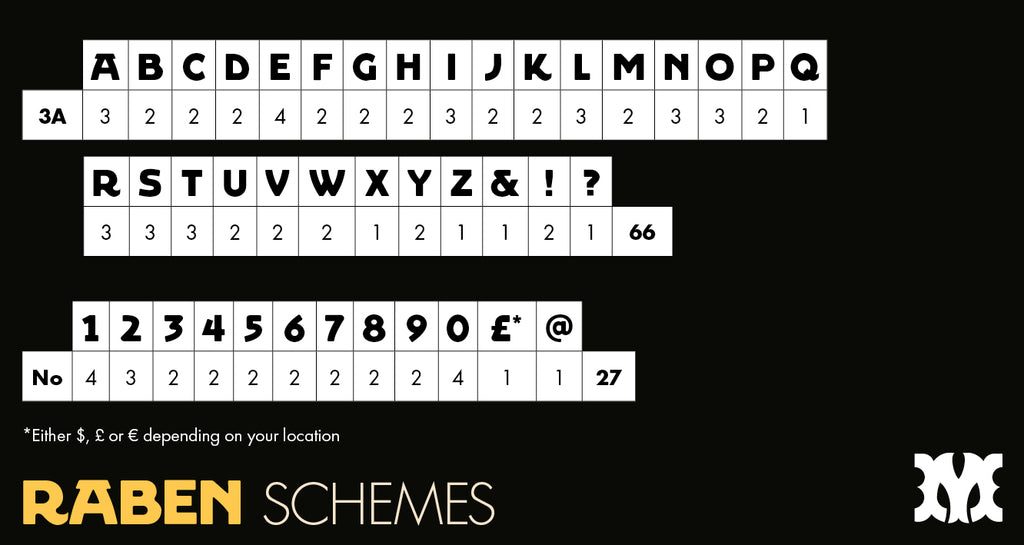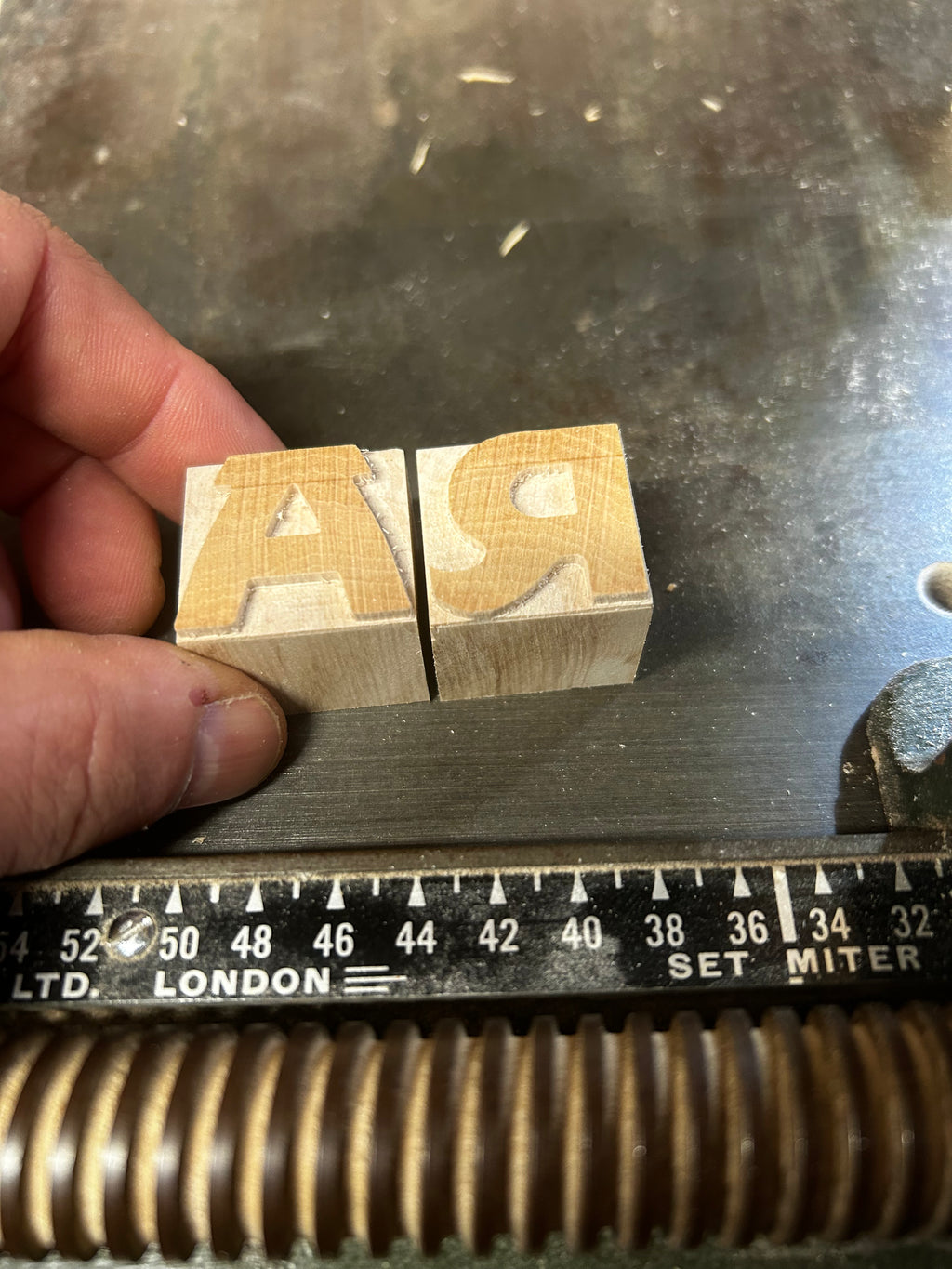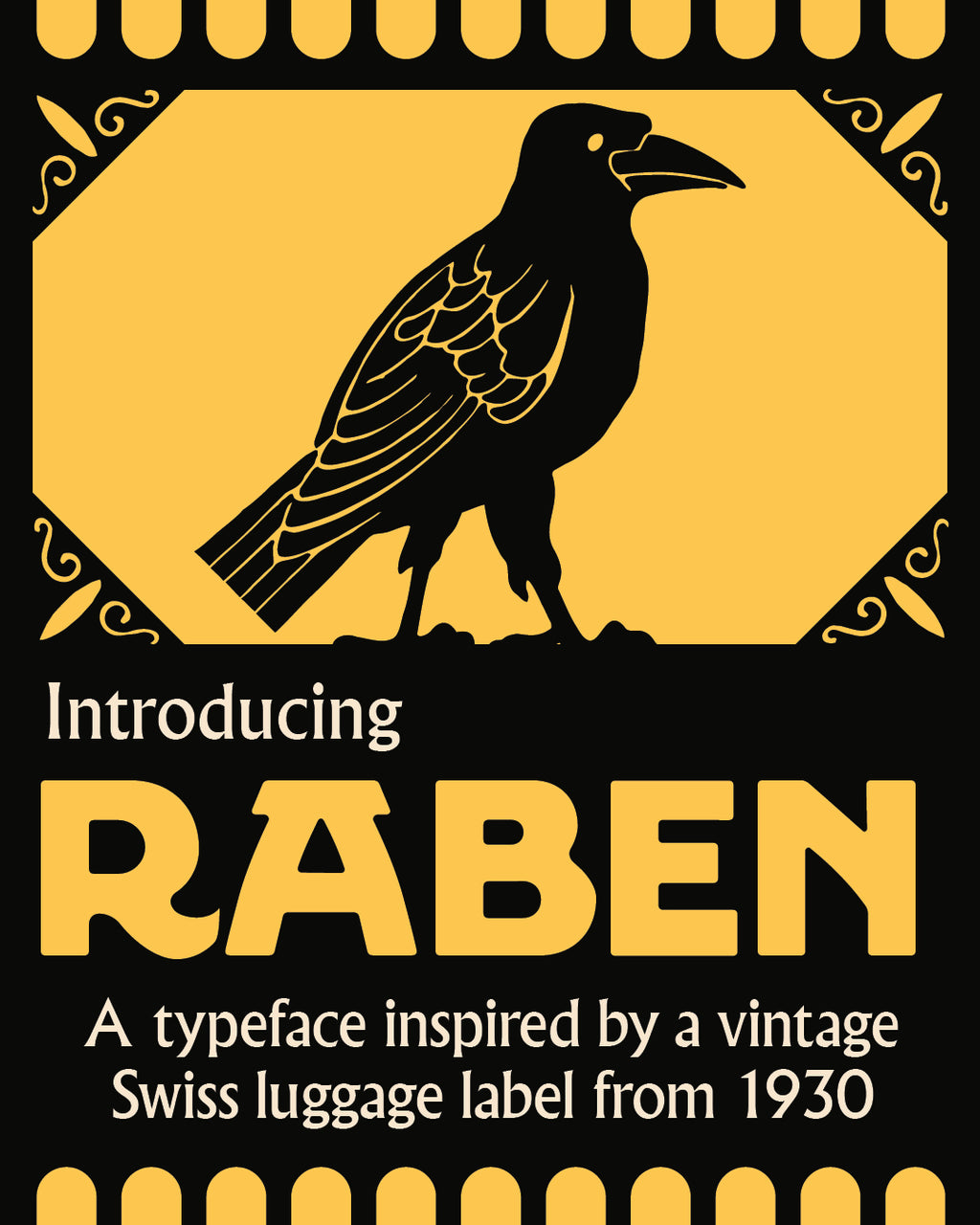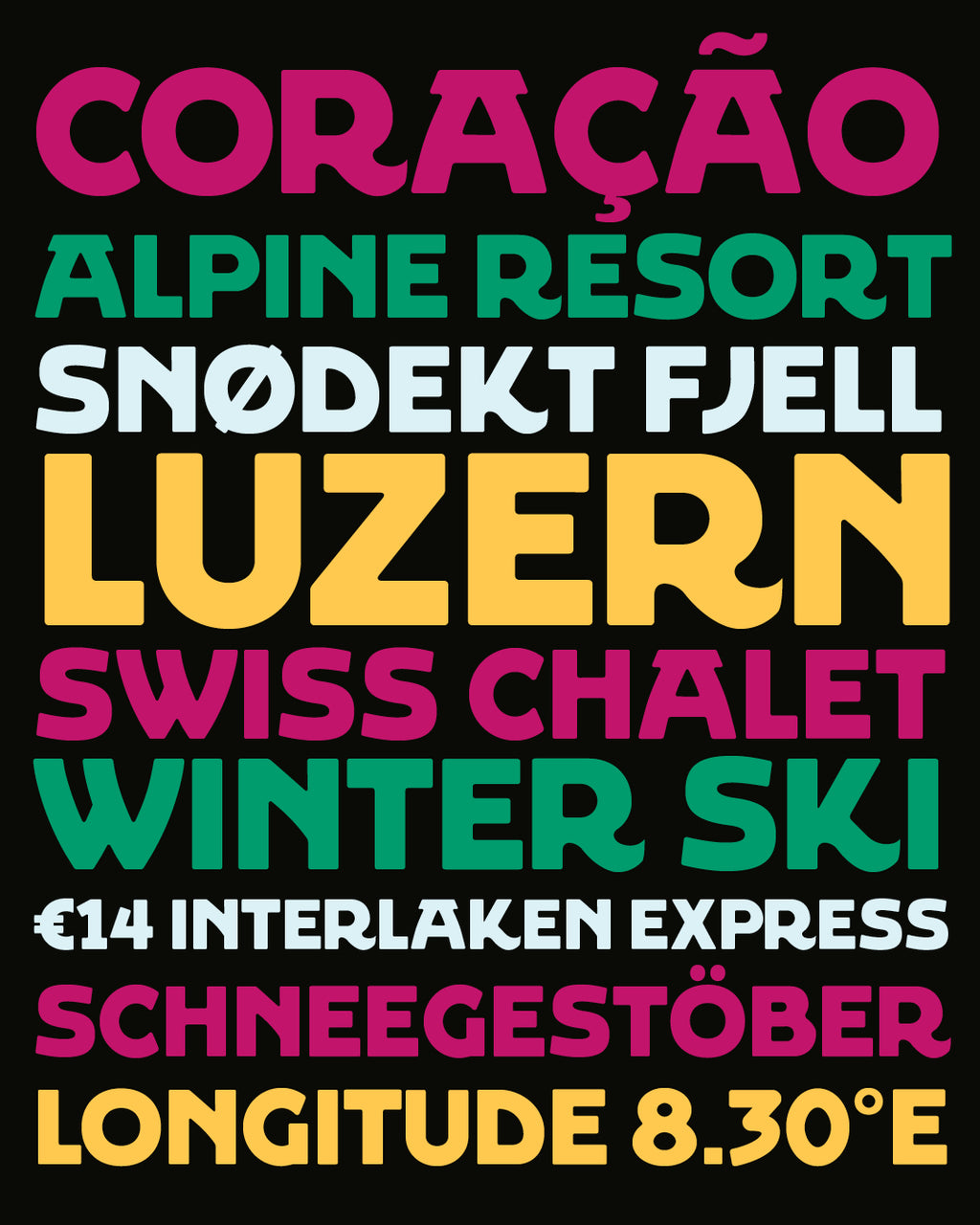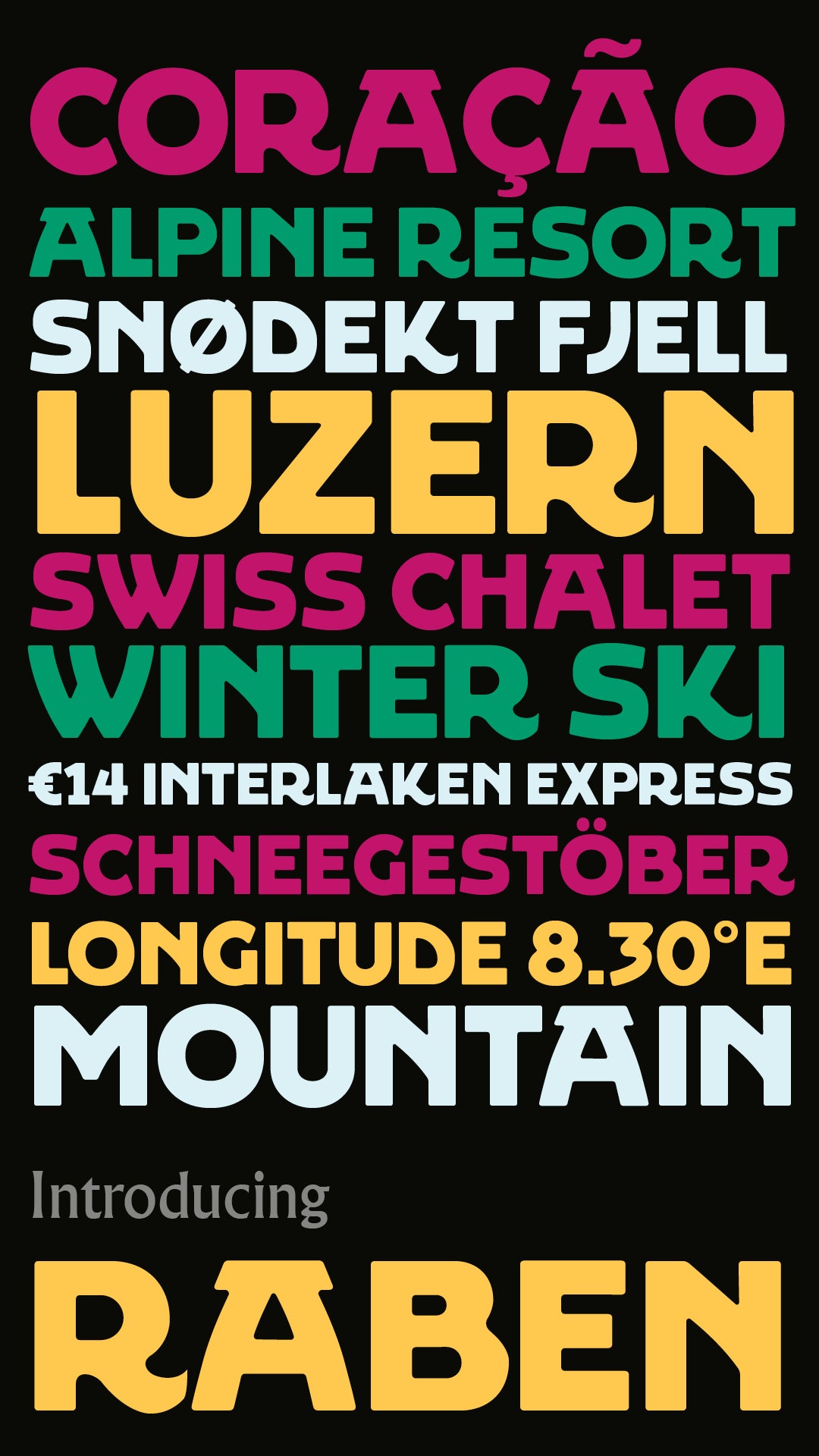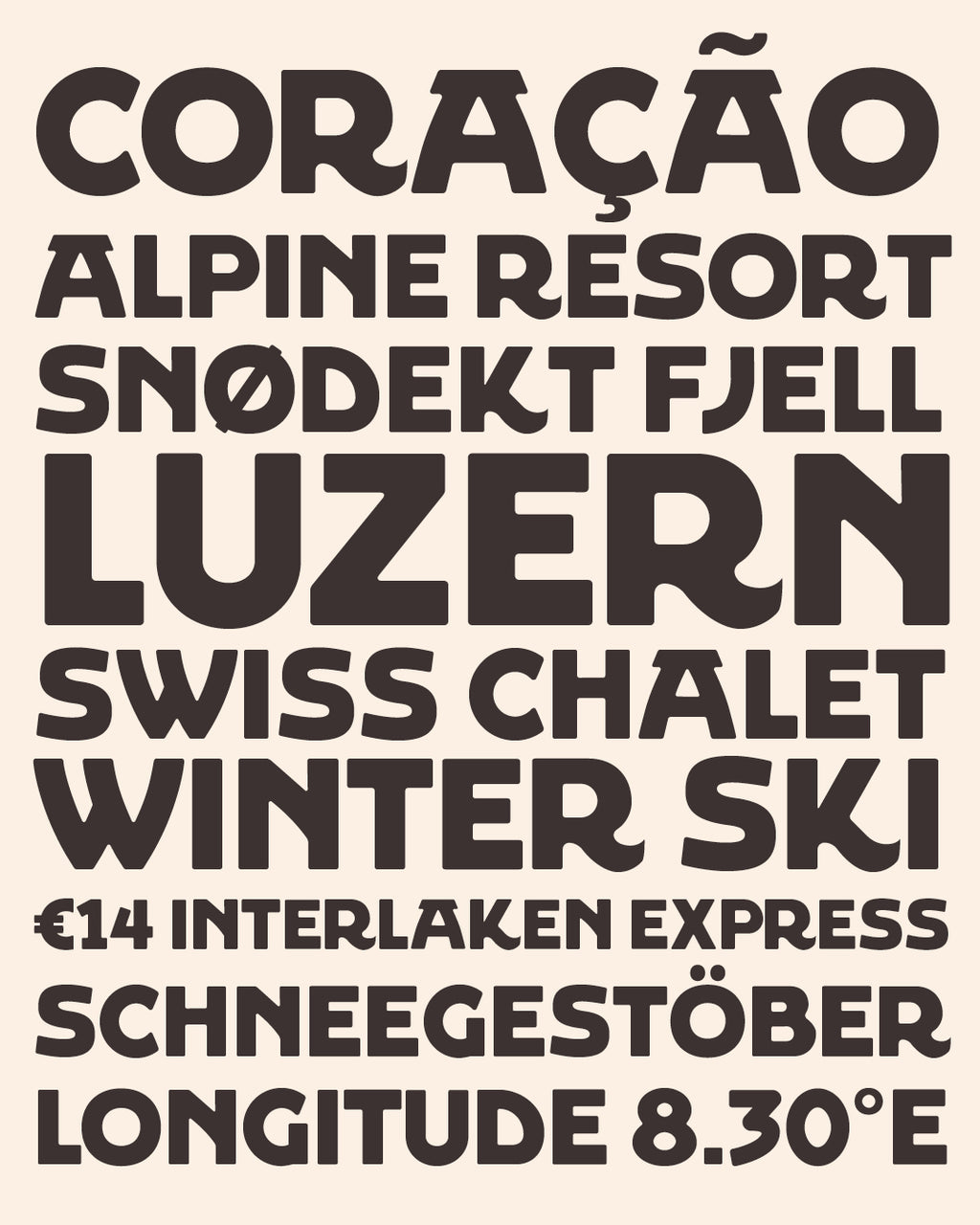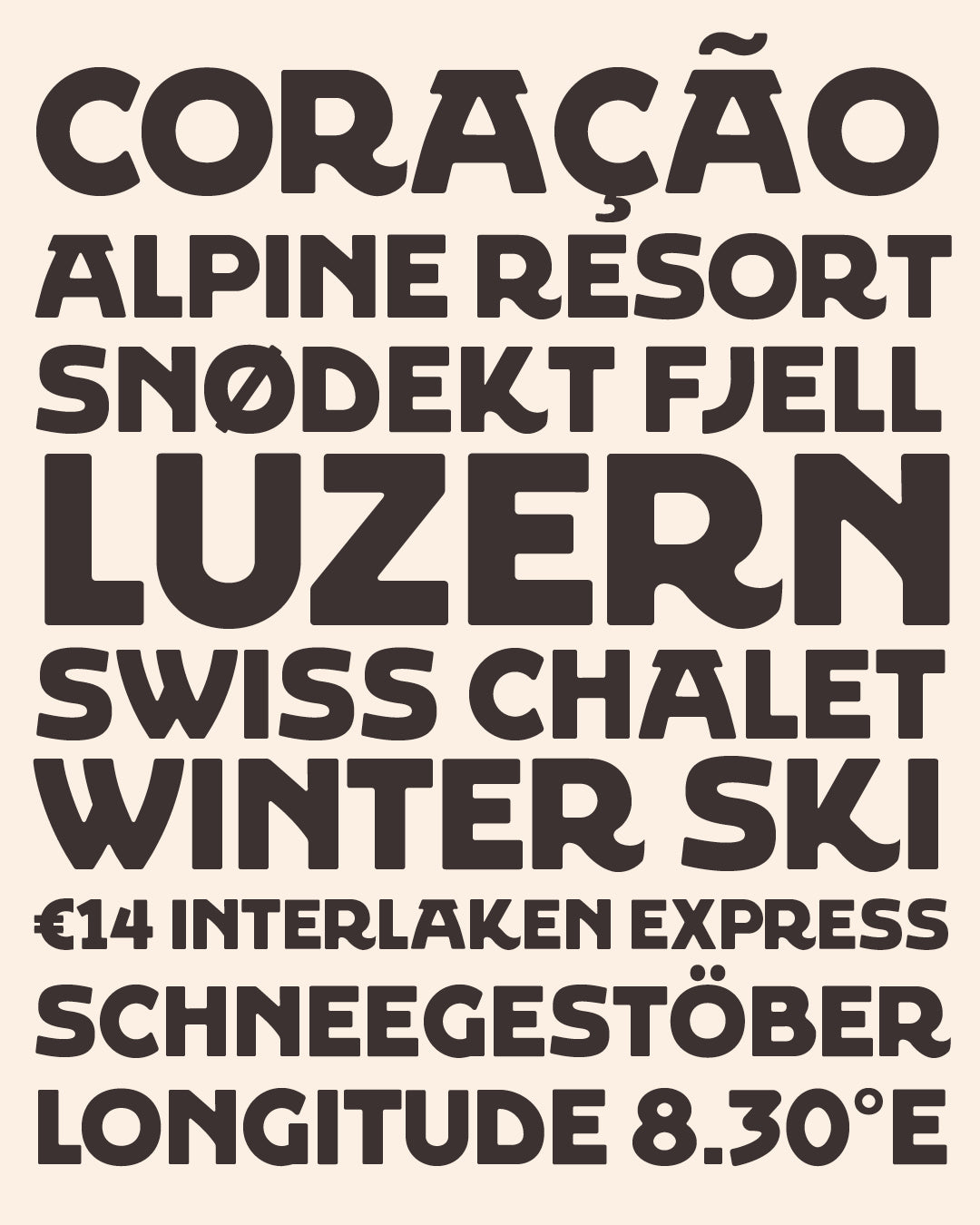
'Raben' letterpress woodtype typeface
Introducing 'Raben' - a typeface based on a vintage Swiss luggage label from 1930.
6 line (25.4mm) cut from end grain English hardwood using a combination of modern CNC technology and traditional hand woodworking tools (including an original printers saw), made to English type-high (0.918in or 23.3mm) within plus or minus 0.1mm tolerance, sealed with shellac and hand finished with a traditional polished printing surface.